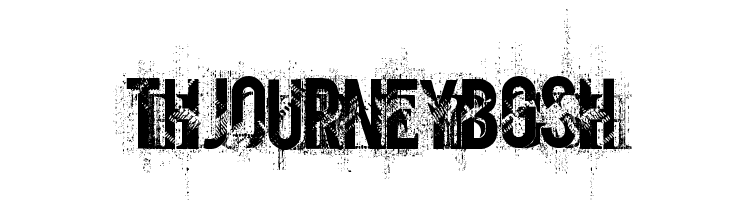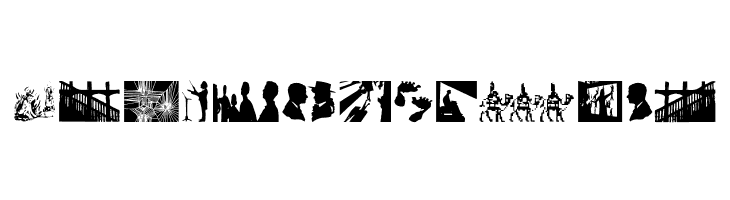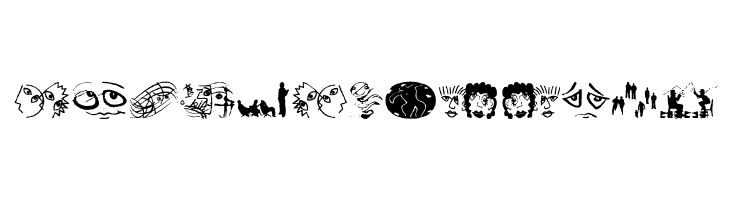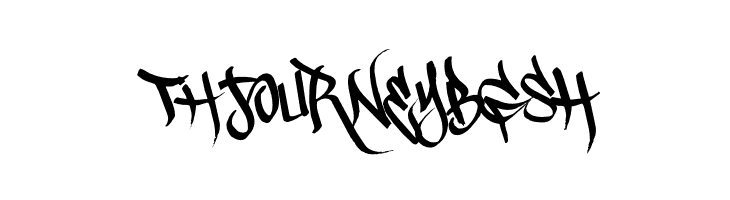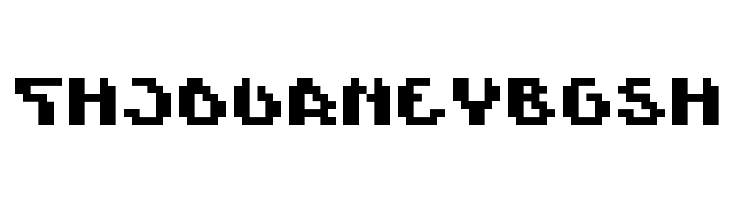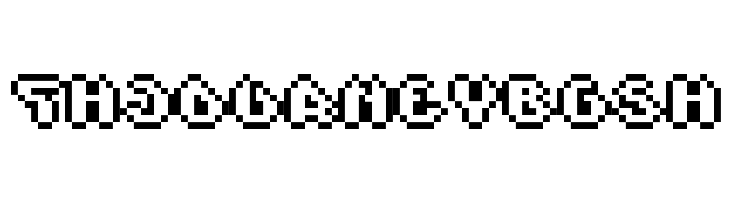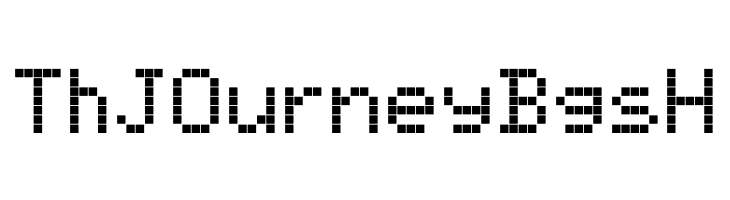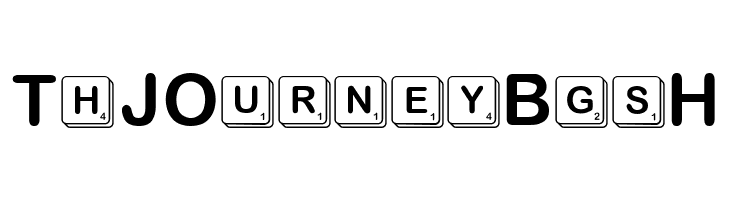
• Scienide
A pixelated, retro-style font with a bold, geometric design.
• Scienide LS
• Scienide Outline
A pixelated, outline font with a retro digital aesthetic.
• Scissoria
A collection of intricate silhouette illustrations, not a traditional font.
• ScrambleMixed
A bold, modern font with clean lines and balanced spacing.
• ScrapArt
A whimsical dingbat font with abstract faces and artistic illustrations.
• Scrawler3_free
A bold, graffiti-style font with dynamic and expressive strokes.
• screamo
A bold, distressed font with a grunge aesthetic and chaotic texture.
• ScreenMatrix
A pixelated, retro-style font with a blocky, geometric design.
• Screw DSG